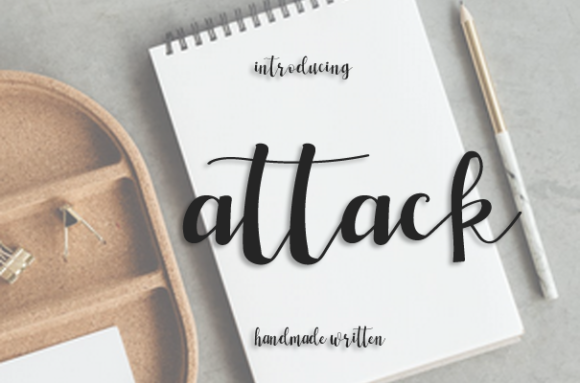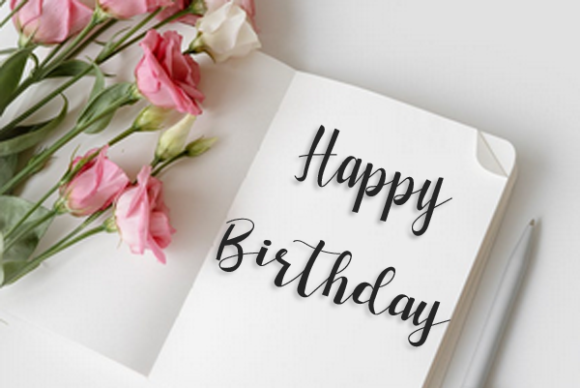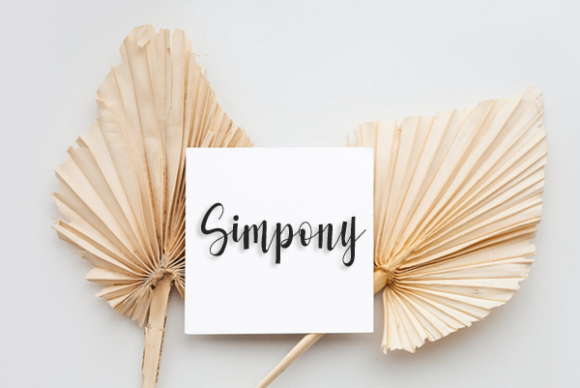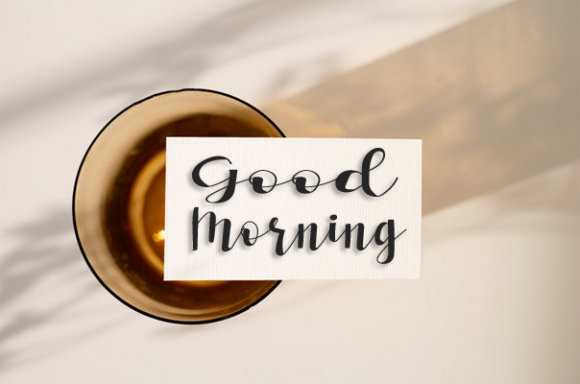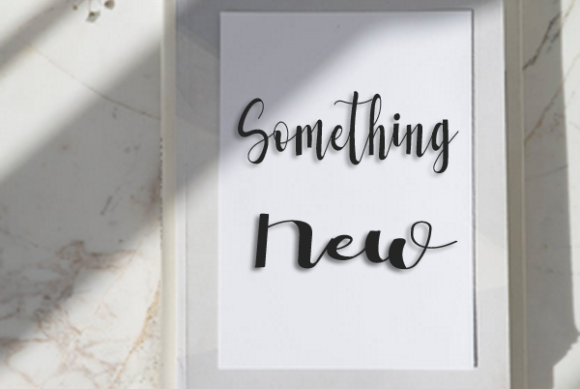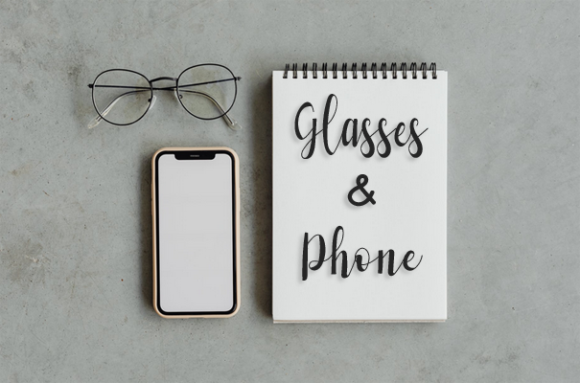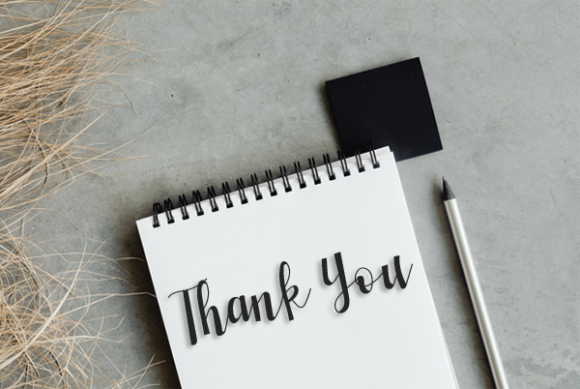
Attack Font
About Attack Font
Attack is a whimsical script font with a relaxed theme, featuring a lovely style. No matter the topic, this font will be an incredible asset to your fonts’ library, as it has the potential to elevate any creation.